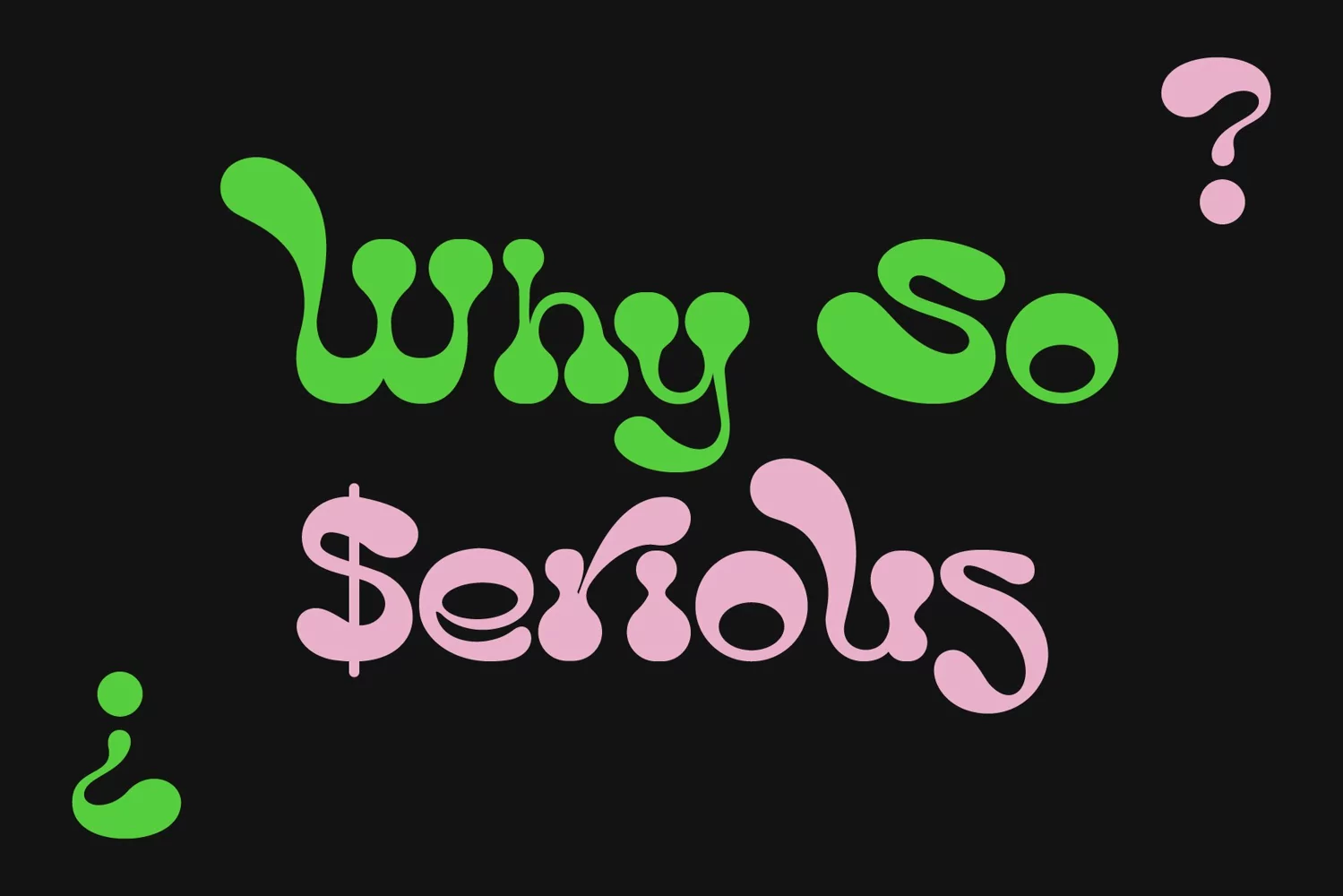
Hey Ho, Let's Go.... say hi to “Grandelo” display typeface. Powered with opentype features, alternate characters & ligatures. PUA encoded.
Perfect and suitable for logo, branding, sticker, t-shirt, headline, packaging, etc.
Grandelo